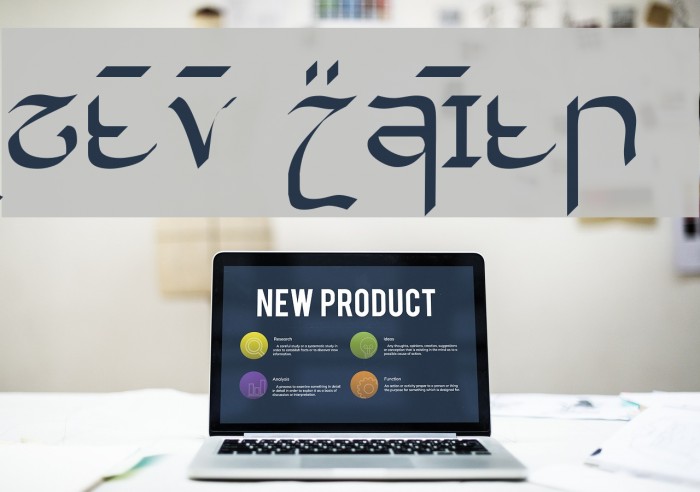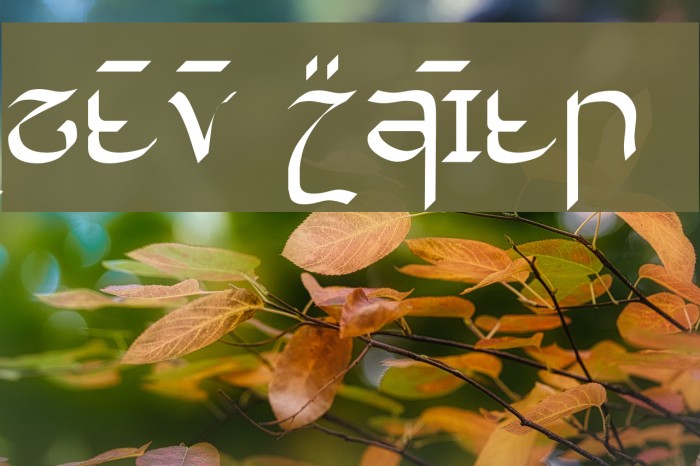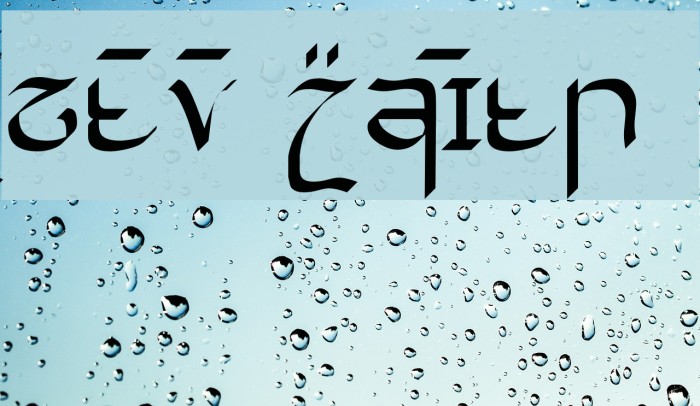
Cirnaja Bookhand Font
This font presents a unique and artistic style, characterized by its angular and geometric shapes. The letters are crafted with sharp edges and distinct curves, creating a futuristic and abstract appearance. The design incorporates a blend of thick and thin strokes, adding a dynamic contrast that enhances its visual appeal. The characters are slightly condensed, contributing to a compact and cohesive look. This font stands out with its innovative approach, making it suitable for creative and modern design projects.
A geometric and angular font with a futuristic and abstract style.
- Proposed Projects: Ideal for sci-fi themed designs, modern art posters, and innovative branding projects.
- Character Spacing: Tight
- Use Case: Logos, Posters, Creative Titles